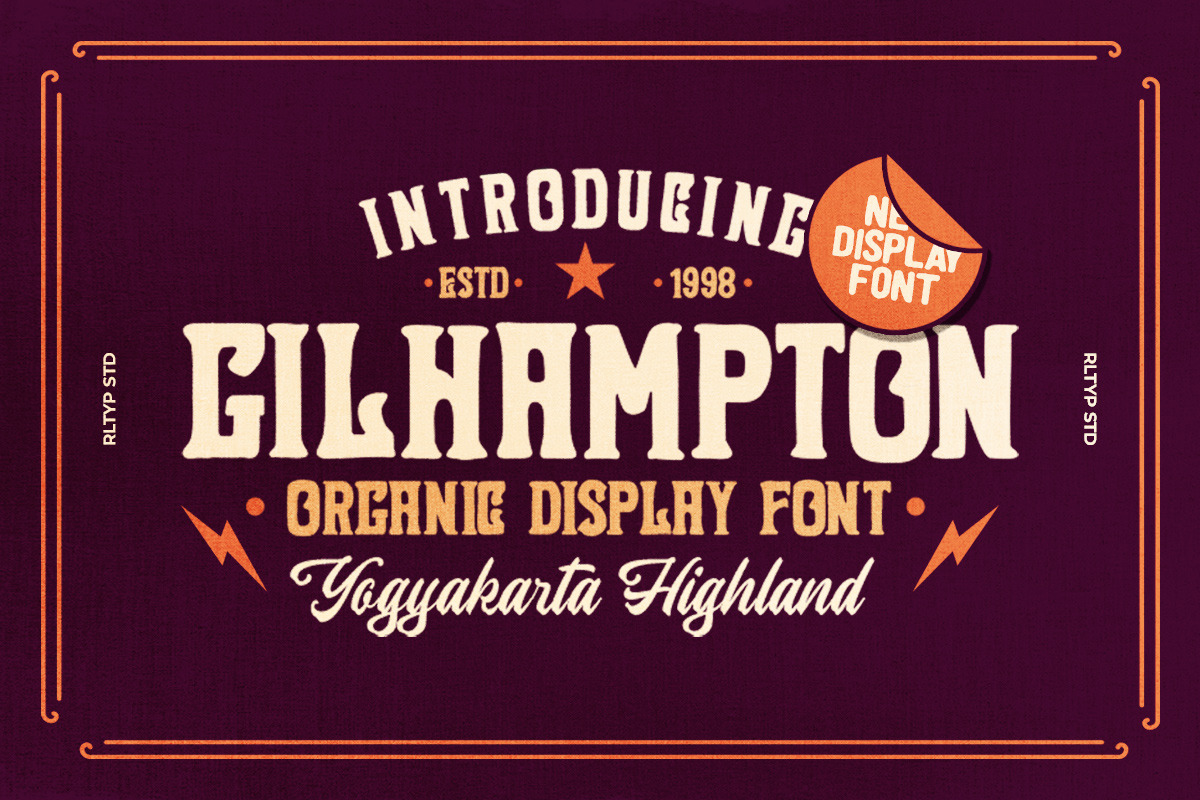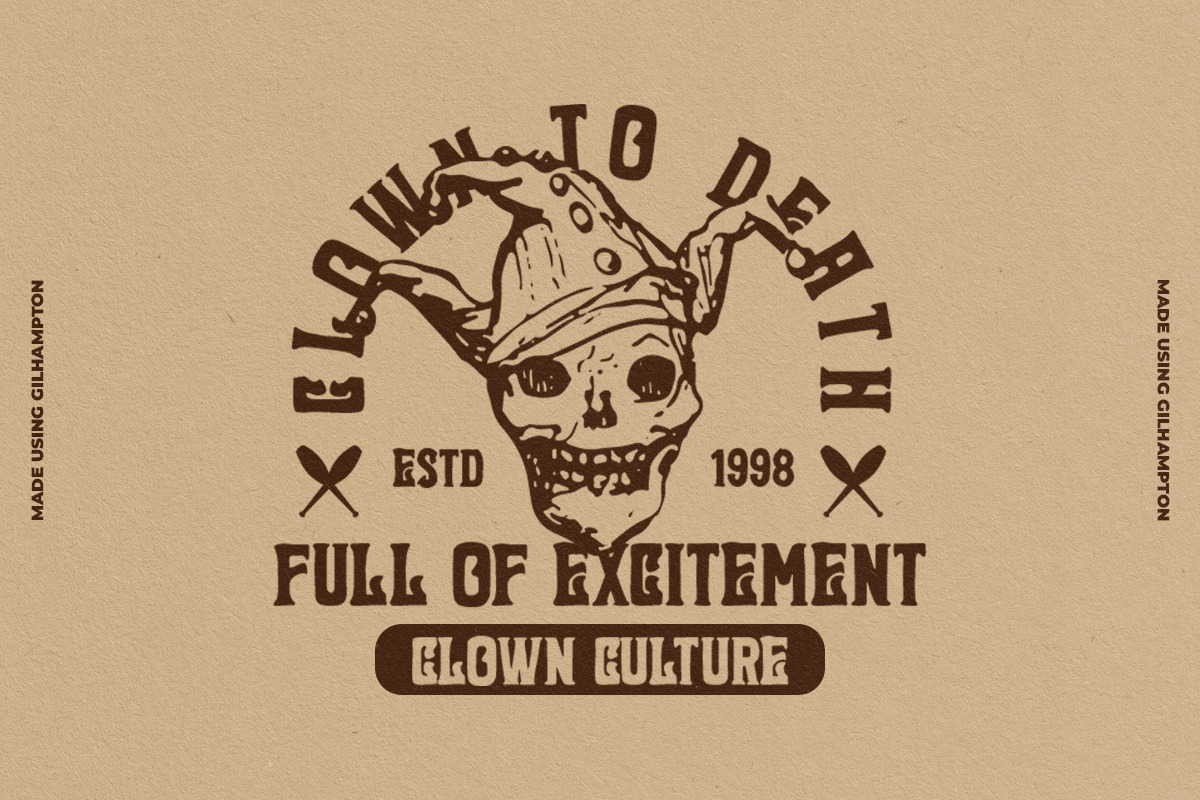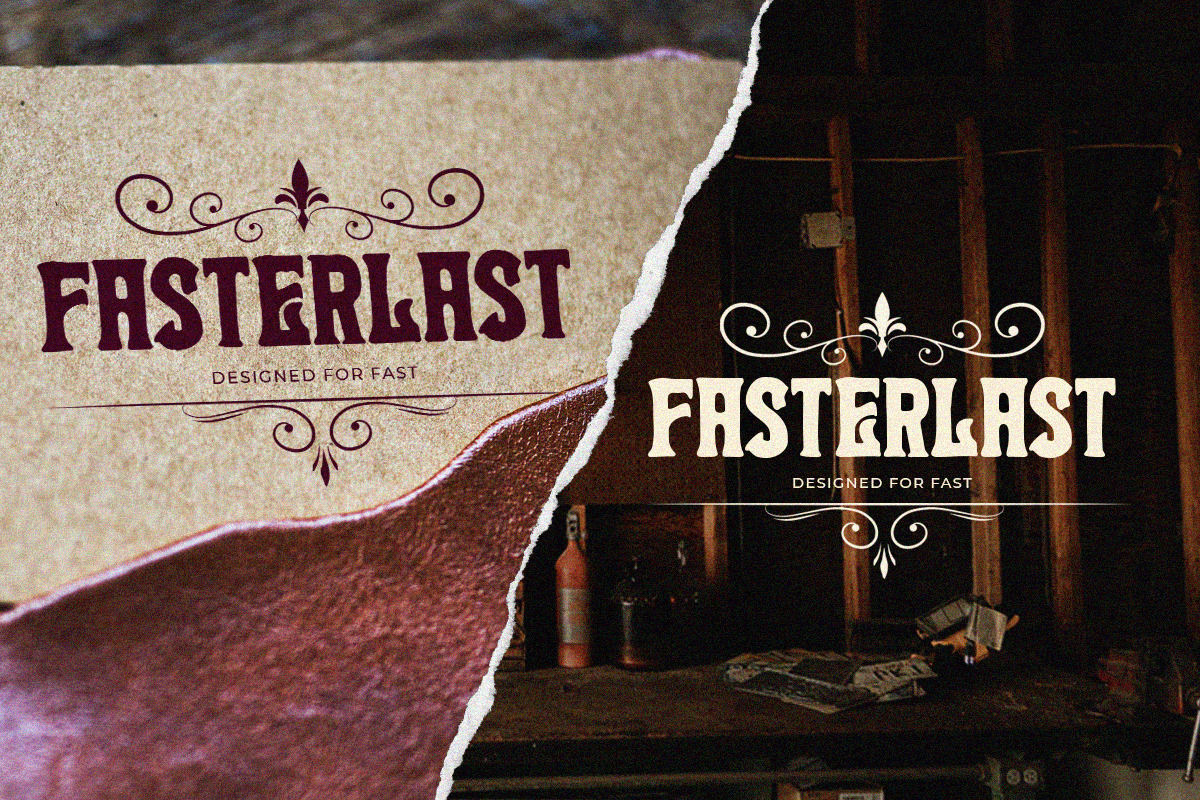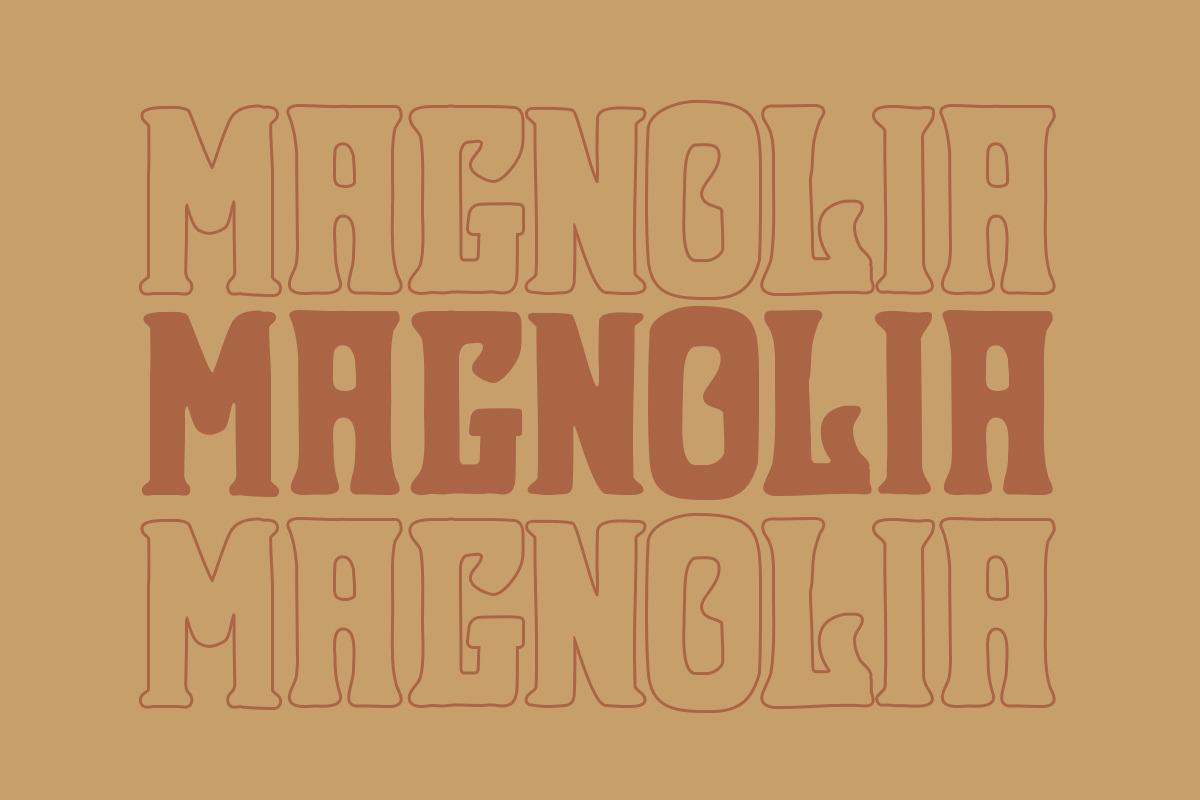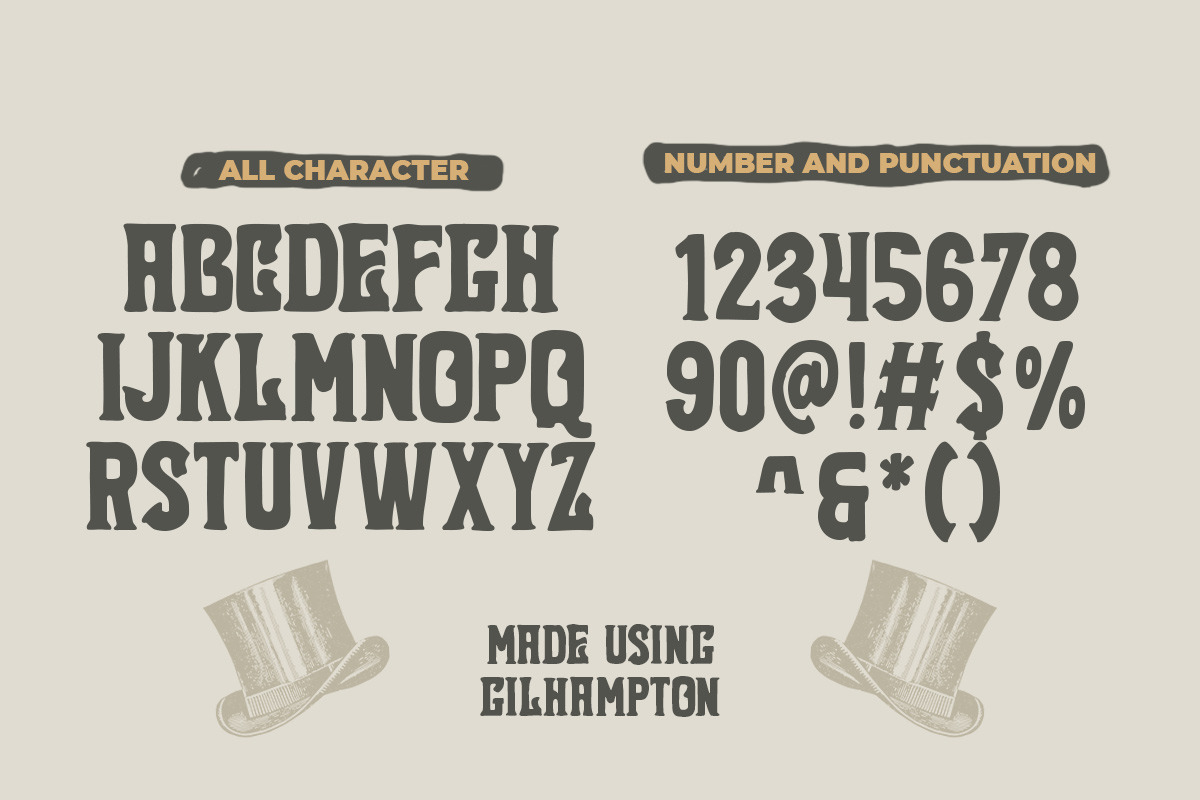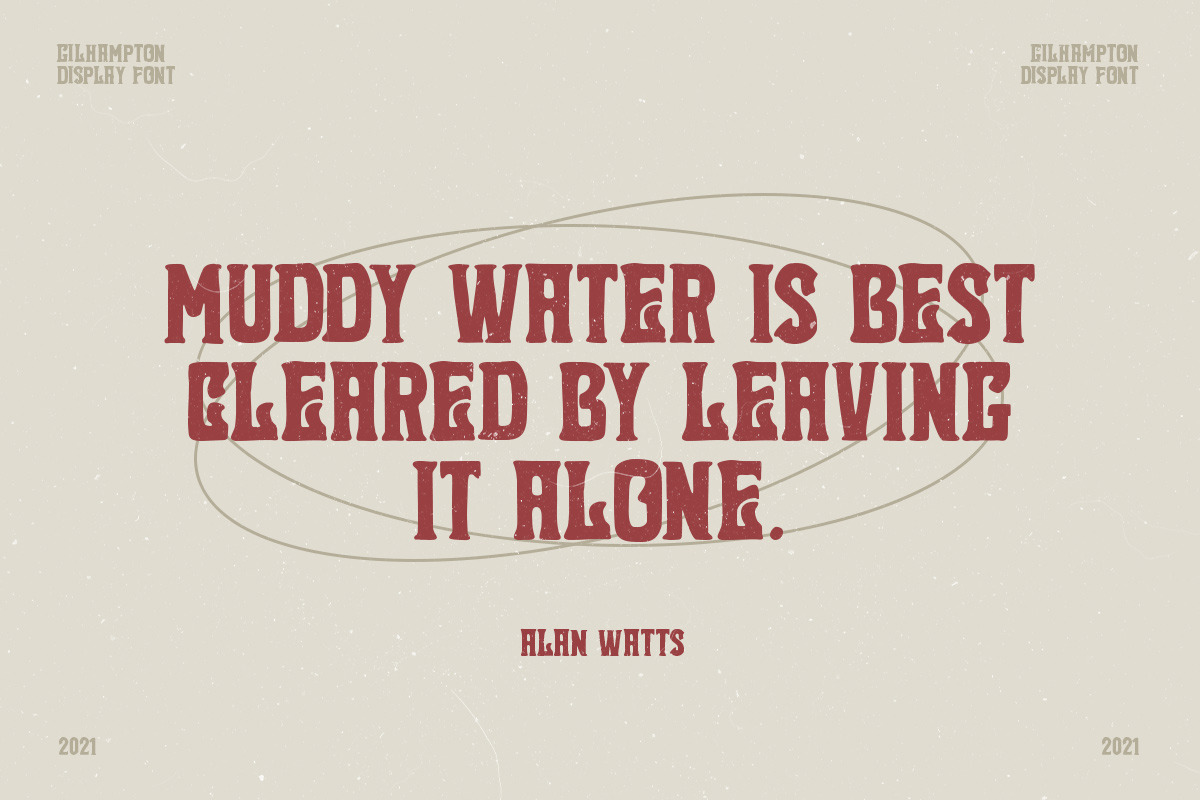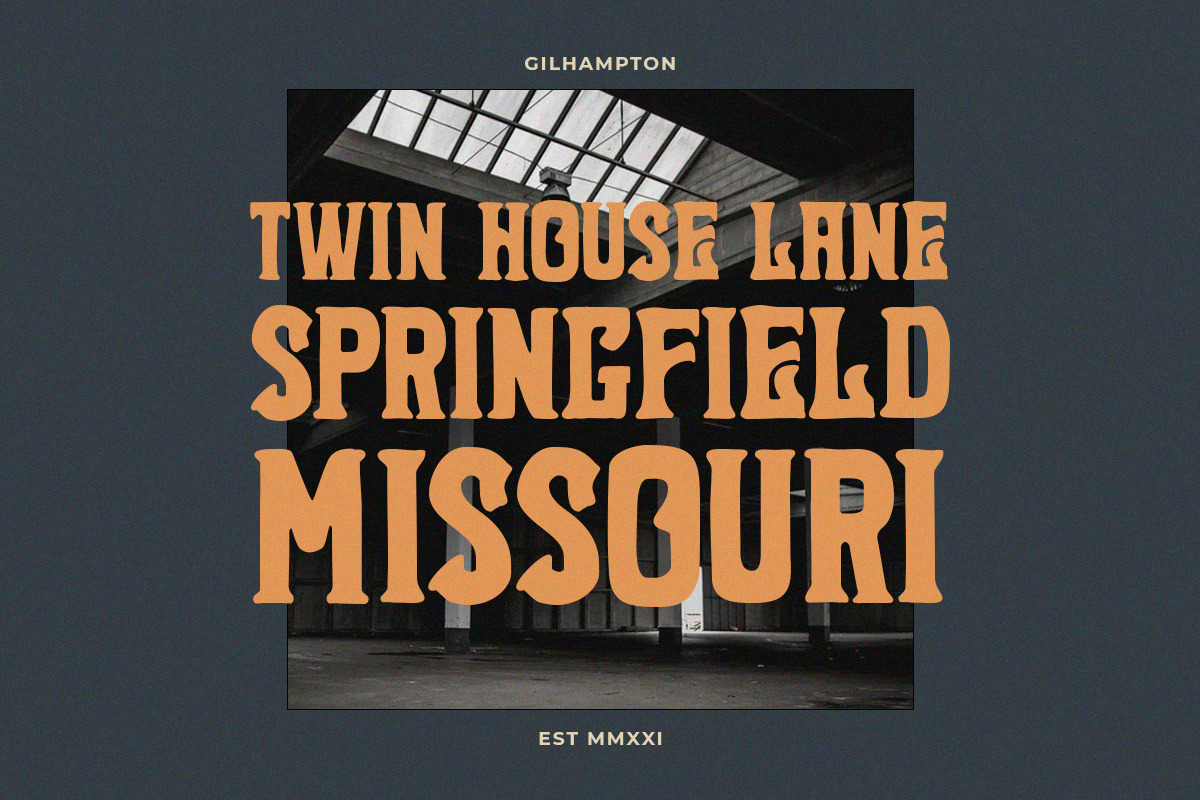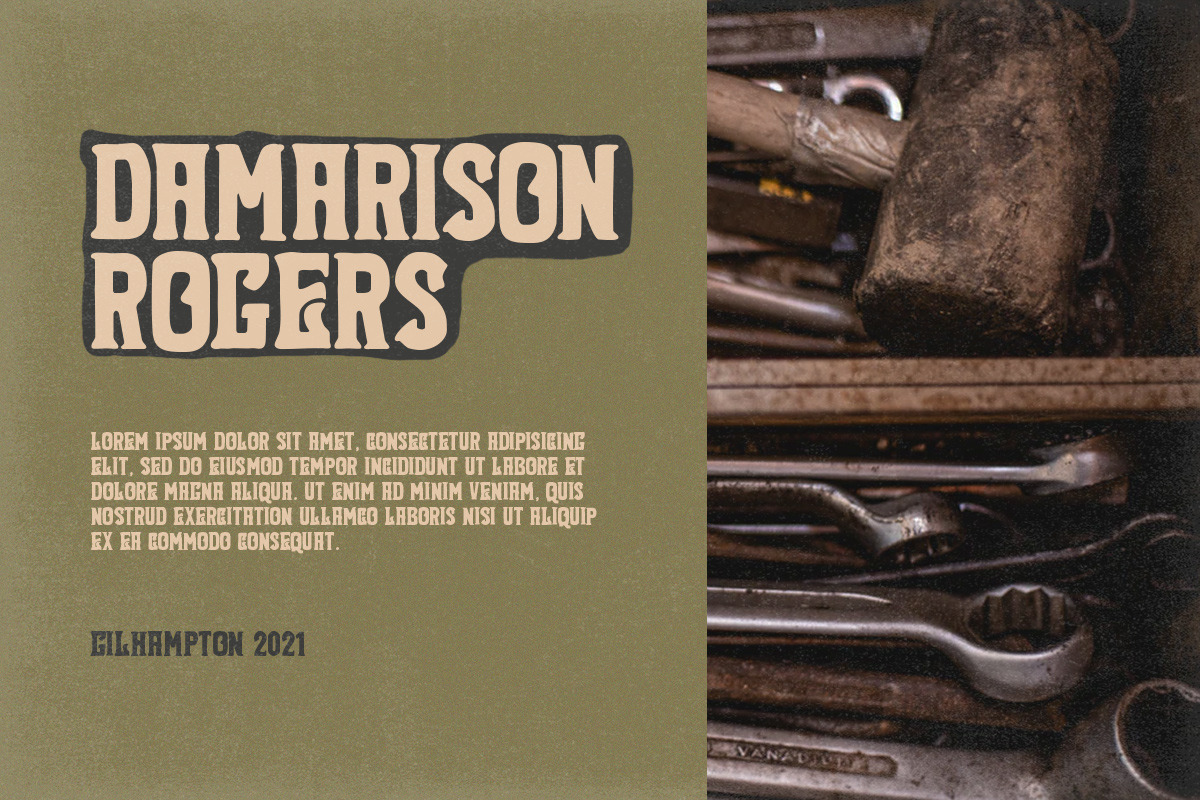
Gilhampton - Organic Typeface
Introducing, Gilhampton organic typeface!
Gilhampton is an organic display font that have an organic and quirky characteristic that makes this font looks natural and hand drawn. this font is perfect for people who are looking for design with organic touch. this font is suitable for branding, packaging, headline, quotes, etc.**